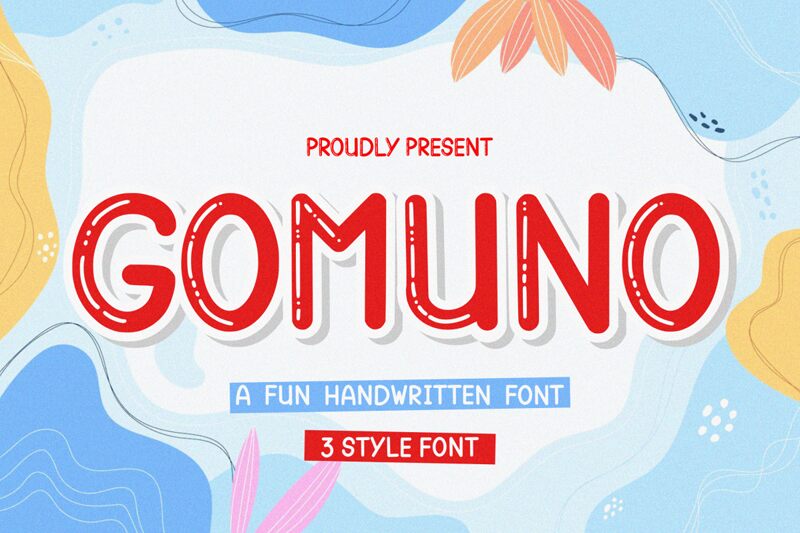
Gomuno font family by Essentials Studio is cartoon-inspired in its letter construction with an emphasis on long, connected strokes for each character. This is completed by semi curves on certain ends with adjustments so that the horizontal line does not go beyond the ascenders of the letter width.
Because of this lengthy and organized structure, the font can be recognized with every capital character in advertising for kids’ cereal brands and toys, as well as movie and series titles. Search for readability and clarity in your posts and publications and convey it with an Ad Lib font.